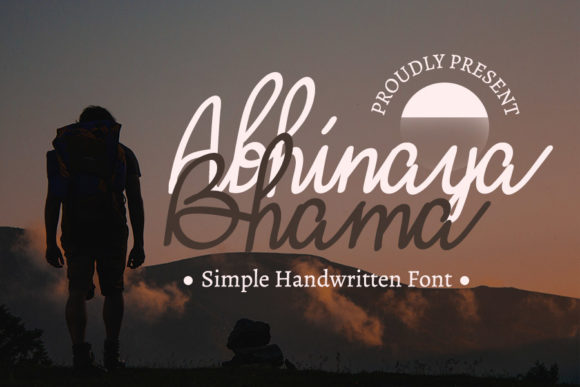
The Abhinaya Bhama Font: A Stylish and Versatile Addition to Your Design Toolbox
I’ll never forget the time I was working on a fashion branding project, and my client asked me to create a logo that exuded elegance and sophistication. I spent hours scouring the internet for the perfect font, but nothing seemed quite right. That was until I stumbled upon the Abhinaya Bhama font. With its smooth curves and stylish handwritten aesthetic, it was love at first sight! In this article, I’ll share my experience with this beautiful font, and explore its features, uses, and alternatives.
An Honest Review of Abhinaya Bhama
- ✨ Thin and stylish: Abhinaya Bhama is a beautifully crafted font that adds a touch of elegance to any design.
- ✅ Smooth curves: The font’s smooth curves make it perfect for fashion branding, editorial designs, and any project that requires a sophisticated look.
- 💫 Versatile: Abhinaya Bhama can be used for a wide range of design projects, from logos and headings to body text and more.
While Abhinaya Bhama is an excellent font, there are a few things to keep in mind:
- 🤔 Limited availability of glyphs: Abhinaya Bhama may not have an extensive range of glyphs, which could limit its use in certain projects.
- ⚠️ Not suitable for body text: Due to its thin and stylish nature, Abhinaya Bhama may not be the best choice for body text, especially in smaller font sizes.
Abhinaya Bhama supports OpenType features, which allow you to access additional glyphs and stylistic alternates. To access these features, you’ll need to use a design application that supports OpenType, such as Adobe Photoshop or Illustrator.
Some of the OpenType features you can expect to find in Abhinaya Bhama include:
- Ligatures: Abhinaya Bhama includes ligatures, which allow you to create beautiful connections between letters.
- Stylistic alternates: The font also includes stylistic alternates, which give you more flexibility when it comes to customizing your text.
The Designer Inspiration Behind Abhinaya Bhama
Abhinaya Bhama was designed with the intention of creating a beautiful, handwritten font that captures the elegance and sophistication of traditional Indian art. The font’s creator drew inspiration from the intricate curves and lines found in Indian calligraphy, resulting in a unique and stylish font that’s perfect for a wide range of design projects.
Q: What is Abhinaya Bhama?
Abhinaya Bhama is a thin and stylish handwritten font that’s perfect for fashion branding, editorial designs, and any project that requires a sophisticated look.
Q: Is Abhinaya Bhama suitable for body text?
While Abhinaya Bhama can be used for body text, it may not be the best choice due to its thin and stylish nature. It’s better suited for headings and titles.
Q: Does Abhinaya Bhama support OpenType features?
Yes, Abhinaya Bhama supports OpenType features, including ligatures and stylistic alternates.